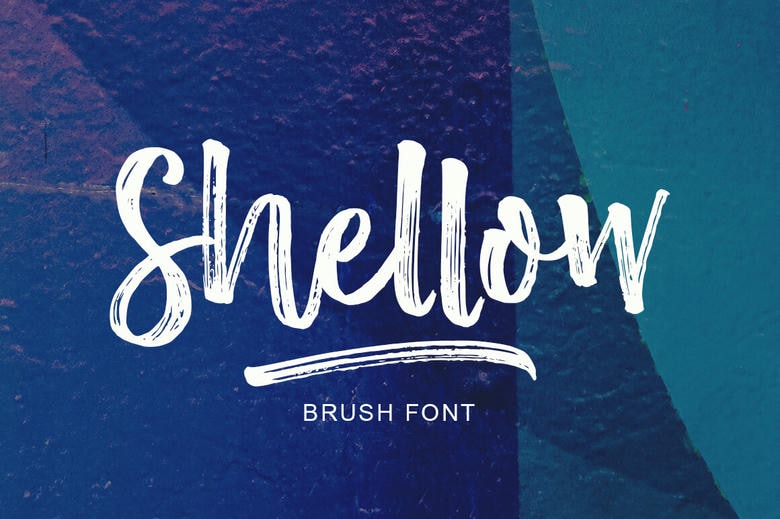
Shellow Font
Shellow is a super casual hand brushed script with detailed brush stroke texture, and a quirky. It can be used for various purposes, such as the title, signature, letterhead, signage, labels, newsletters, posters, logos, correspondence, wedding invitations, badges, etc.
Shellow Brush Script Font